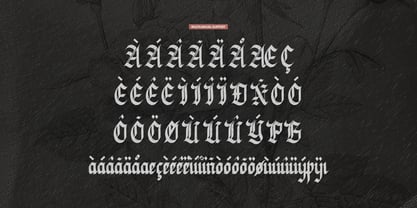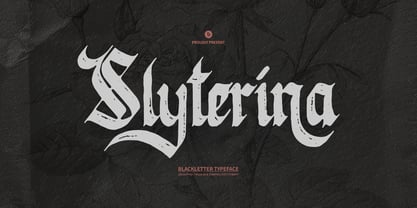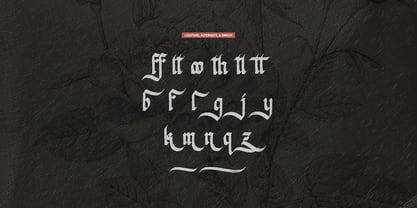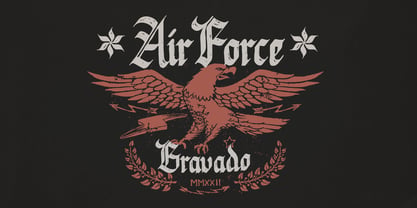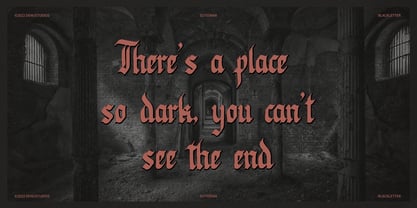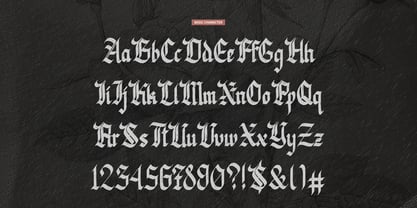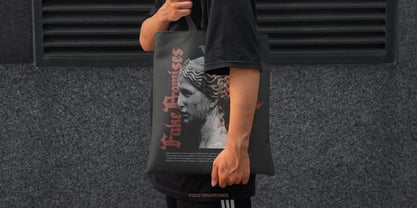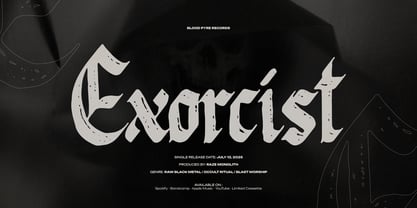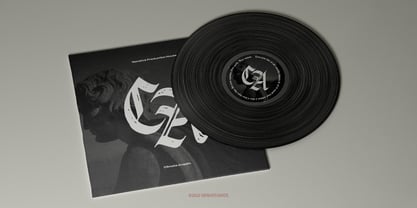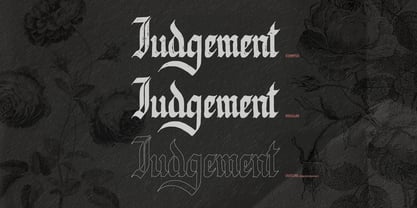
Sylterina Stamped
The Sylterina Stamped Font Family was designed by Dede Nugraha and published by Denustudio. Sylterina Stamped contains 1 styles. More about this family
Sylterina | Blackletter Typeface, from Denustudios, suitable for any projects such as: logos, branding projects, homeware designs, product packaging, mugs, quotes, posters, shopping bags, t-shirts, book covers, name card, invitation cards, greeting cards, label, photography, watermark, special events, and all your other lovely projects that need Blackletter Typeface a taste.
• Alternate and Ligature